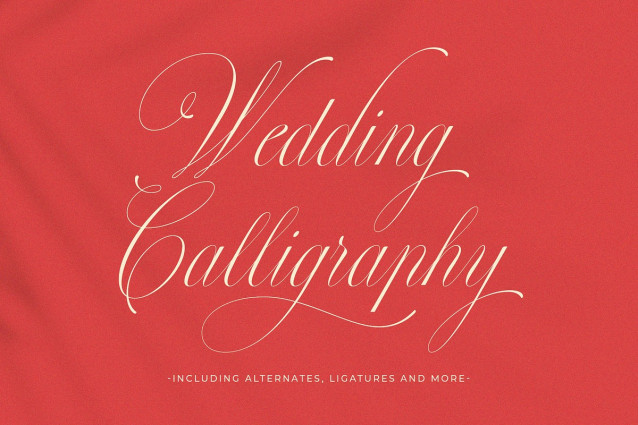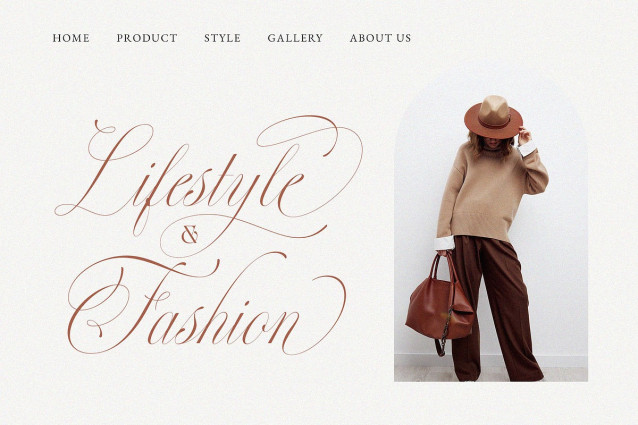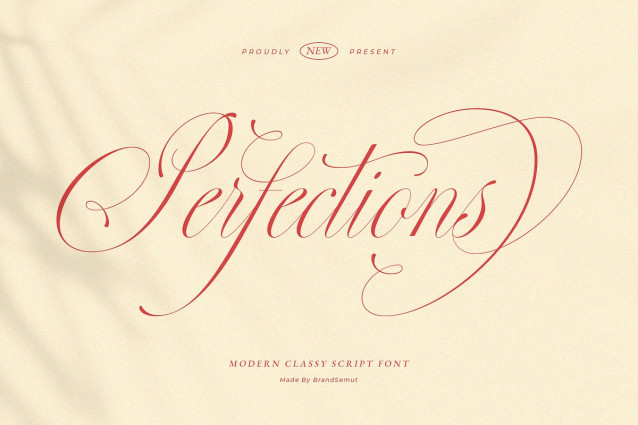
Perfections Font
Perfections Font is a modern classy script font designed to bring luxury, beauty, and elegance into every design project. With smooth curves, graceful swashes, and delicate calligraphy details, this font is the perfect choice for designers who want to create high-end, stylish, and timeless visuals.
Combining the sophistication of classic calligraphy with a modern touch, Perfections offers a versatile style that works beautifully across print and digital designs. Each letter is crafted with precision, balancing artistic charm and readability, making it ideal for both professional branding and personal creative projects.